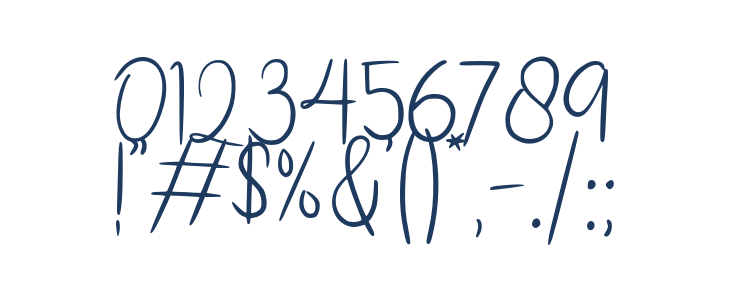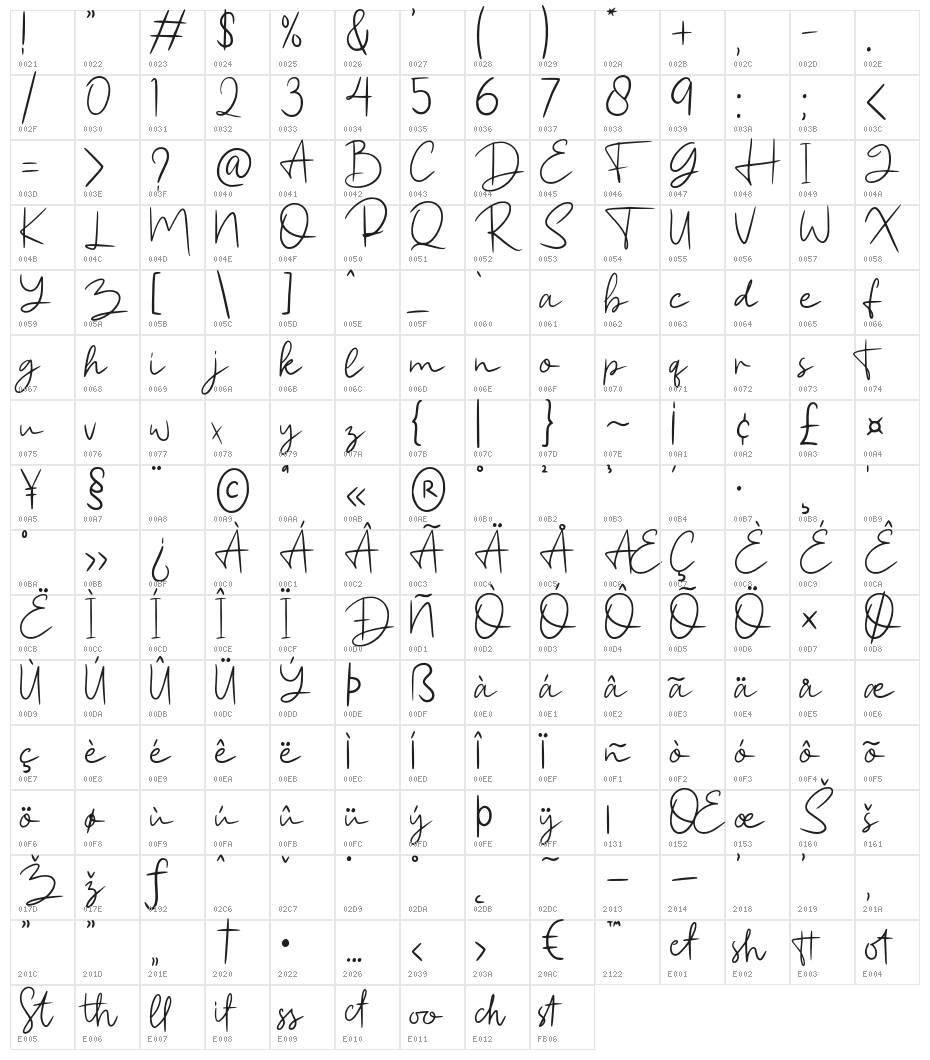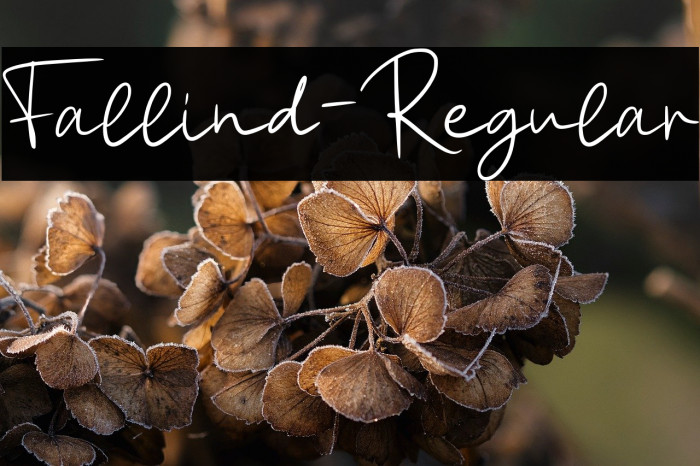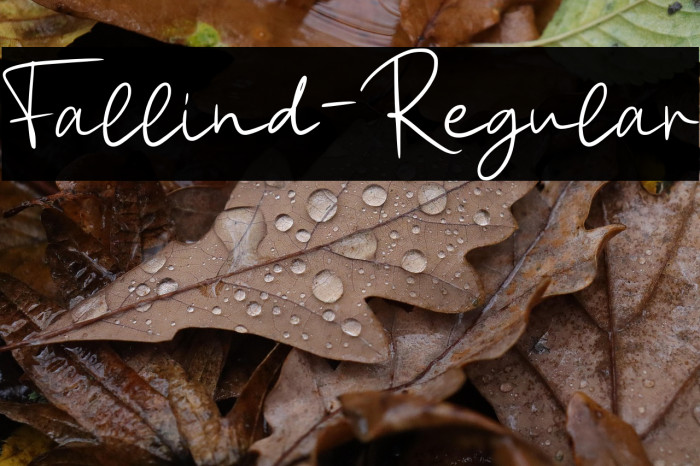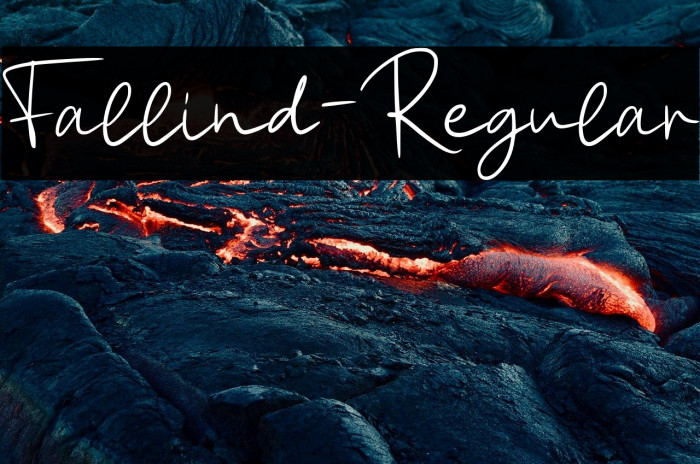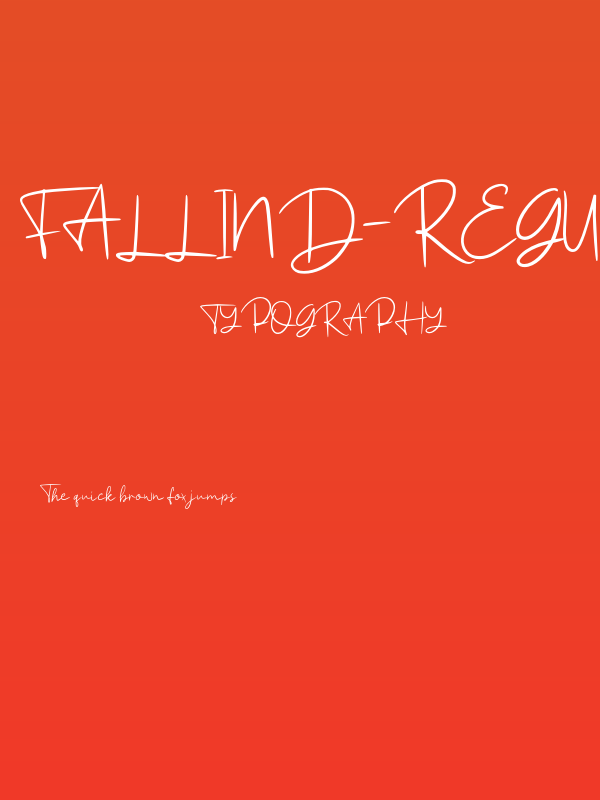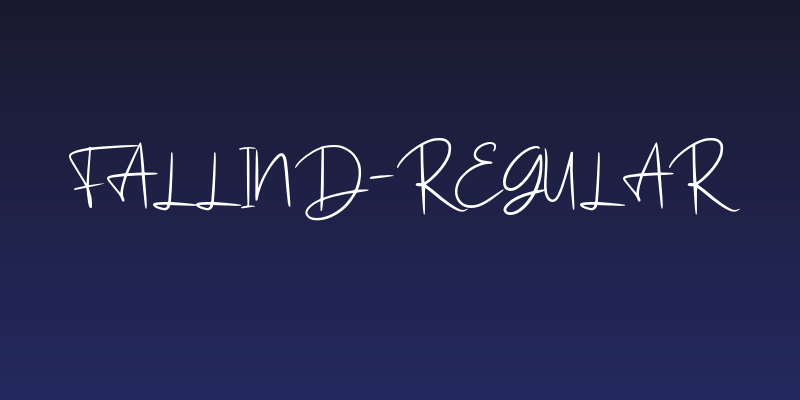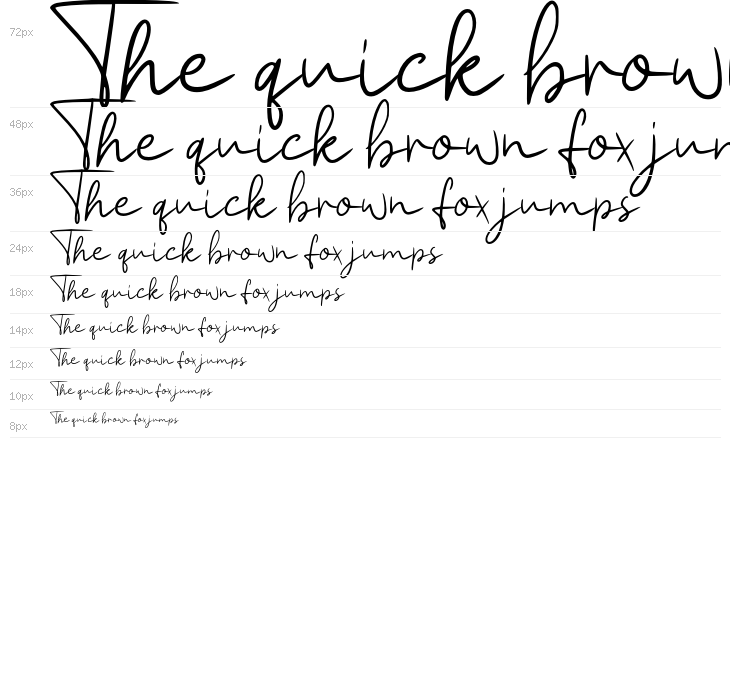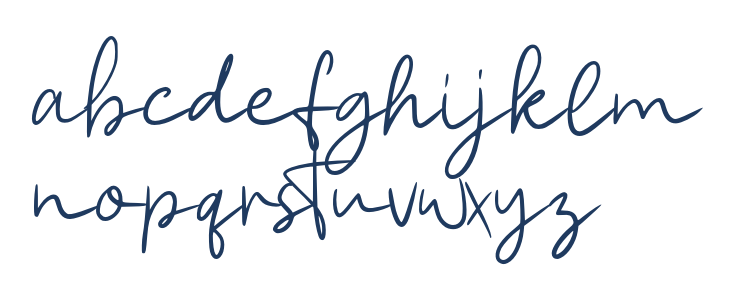
Fallind-Regular Font
Fallind-Regular Description
This font exudes a casual and playful handwritten style, characterized by its flowing and interconnected letterforms. The uppercase letters display a sense of spontaneity with varying heights and slants, while the lowercase letters maintain a consistent fluidity, enhancing the overall informal aesthetic. The numerals are distinct and easily readable, complementing the whimsical nature of the alphabet. Special characters are creatively integrated, adding to the font's versatility. The strokes are smooth and slightly varied in thickness, giving a natural handwritten feel without compromising legibility.
| Overall Style | Casual |
| Use Case | Logos, Headlines, Informal Text |
| Proposed Projects | Ideal for greeting cards, personal branding, social media graphics, and casual invitations. |